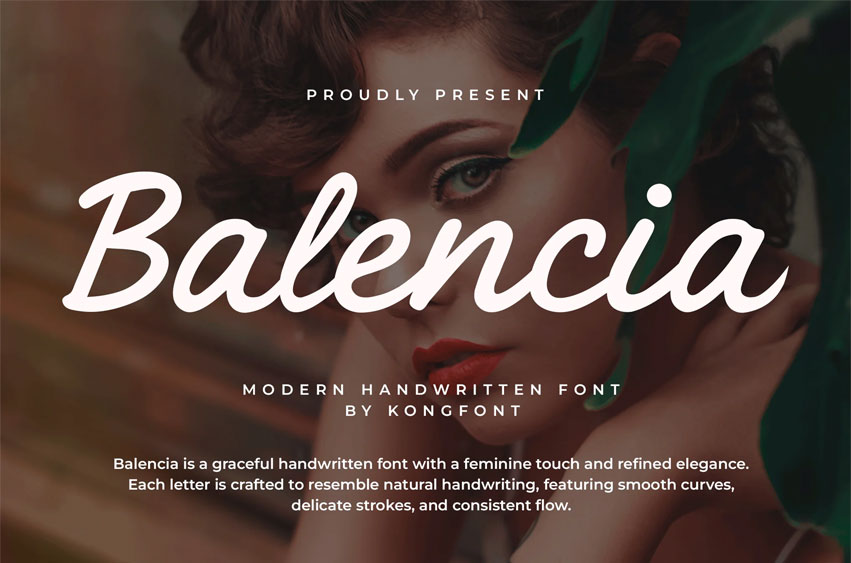
Balencia Font is a modern handwritten font that blends effortless style with authentic charm. Designed to look natural yet refined, this typeface captures the beauty of hand-drawn lettering, making it an ideal choice for projects that require warmth and elegance.
Ideal for wedding invitations, branding, logos, greeting cards, social media posts, and product packaging, Balencia delivers a personal and stylish touch that stands out. Its smooth strokes and balanced letterforms ensure versatility—whether you’re aiming for a romantic vibe or a chic modern aesthetic.
The font includes uppercase, lowercase, numbers, punctuation, and multilingual support, providing designers with all the essential tools to craft expressive and professional results.